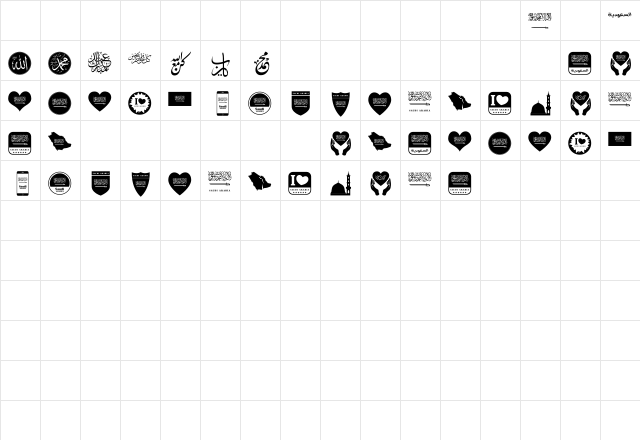
Complete Color Saudi Arabia Regular glyph index. Displaying only characters natively supported by Color Saudi Arabia Regular font.
Color Saudi Arabia is a composed and adaptable typeface that performs quietly and consistently across a wide range of design contexts.